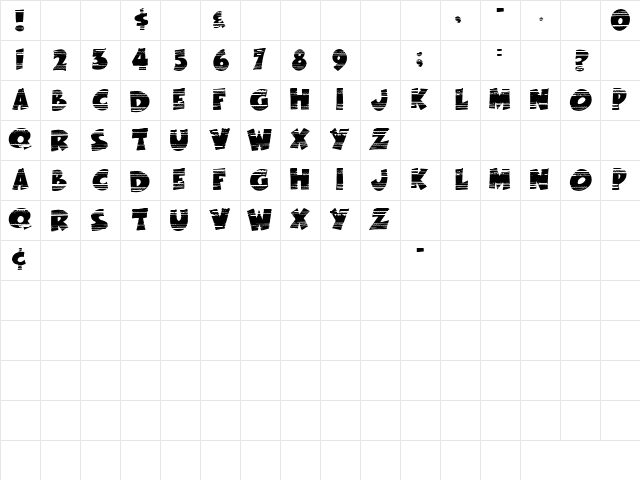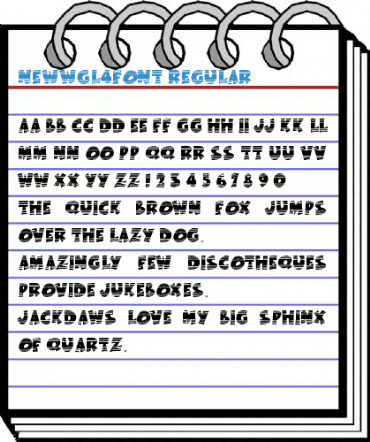
EasterFunbyTom Regular Free Font
EasterFunbyTom Regular
Foundry: AwesomeClipartforKids.com
Designer: AwesomeClipartforKids.com - Tom Brown
Design Context for EasterFunbyTom
EasterFunbyTom has an approachable, lighthearted character - its loose, expressive forms are well-suited to children's content, casual branding, and fun-first design.
Well-suited to food and beverage brands with personality, educational materials, and fun-forward identities.
Font Pairing: Pairs well with a rounded or humanist sans for body copy, maintaining the friendly tone without relying on EasterFunbyTom to carry extended reading.
Pro Tip: Use EasterFunbyTom at larger display sizes where its expressive character can land. Pair with a clean, simple sans for body copy to maintain readability.